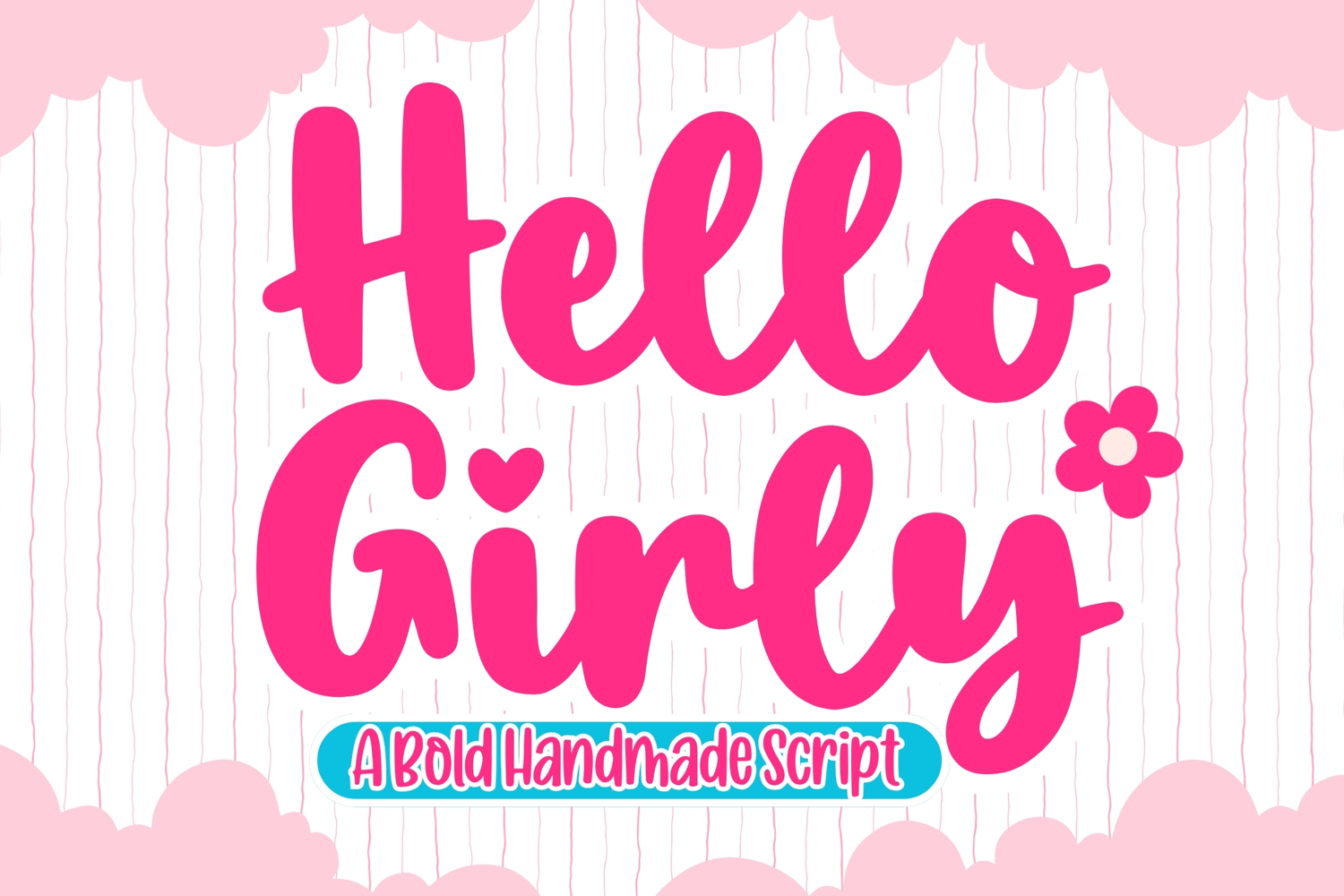
Hello Girly
Hello Girly – Cute Bold Script Font
Say hello to Hello Girly, a cute and confident bold script font designed to bring a playful, stylish, and feminine touch to every creative project. With its thick flowing strokes, smooth curves, and charming handwritten character, Hello Girly feels fun, trendy, and effortlessly eye-catching.
Perfect for logos, branding, fashion designs, beauty products, social media graphics, greeting cards, invitations, stickers, packaging, apparel, quotes, and feminine lifestyle projects.
Hello Girly combines a sweet girly personality with a bold modern attitude, making it versatile enough for both playful designs and stylish professional branding.
Add a little cute, bold, and stylish energy to your designs with Hello Girly!